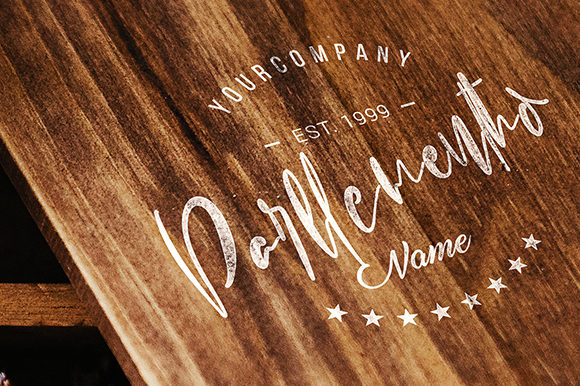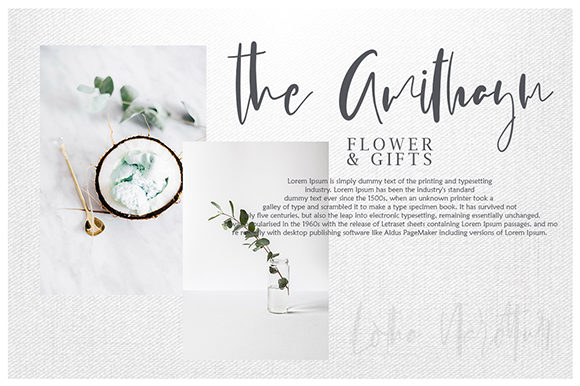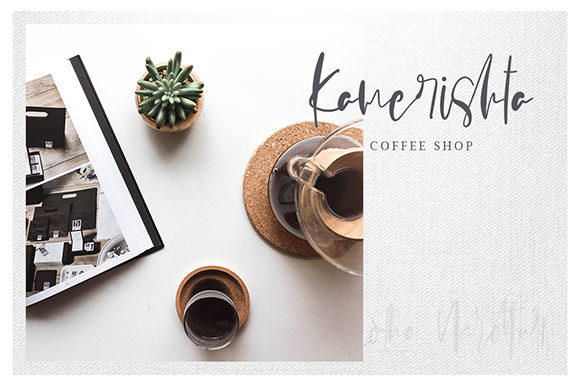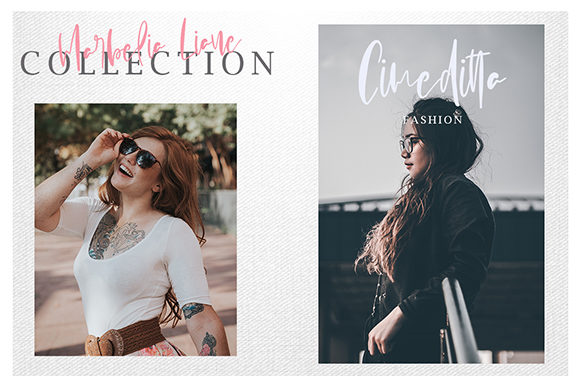
Lotha Narottur Font
About Lotha Narottur Font
Lotha Narottur is a lovely and delicate handwritten font with a light feel. It will add an authentic spark to any design idea.